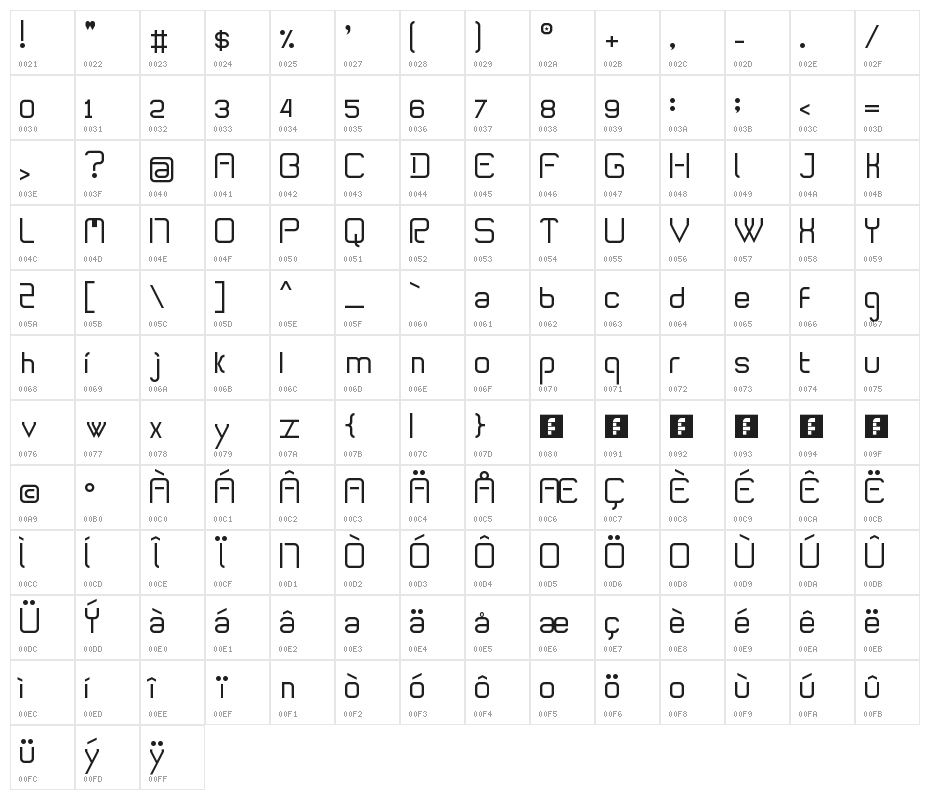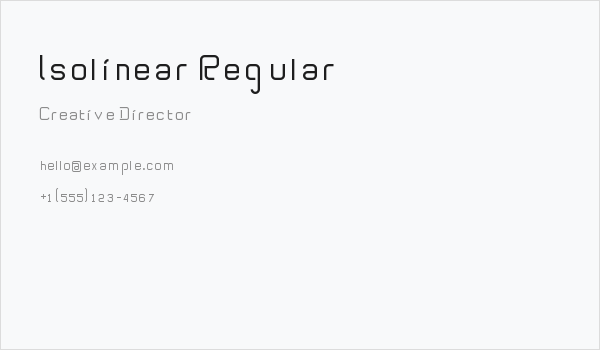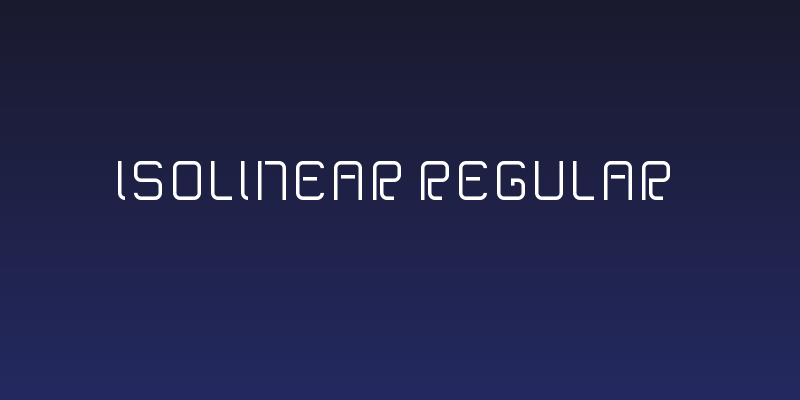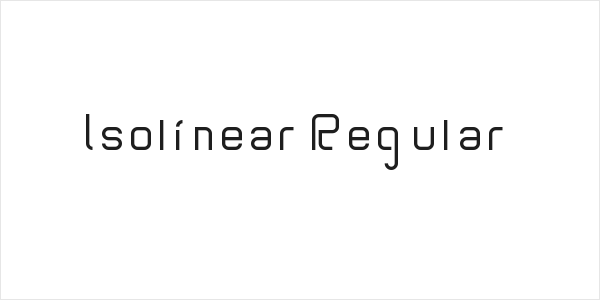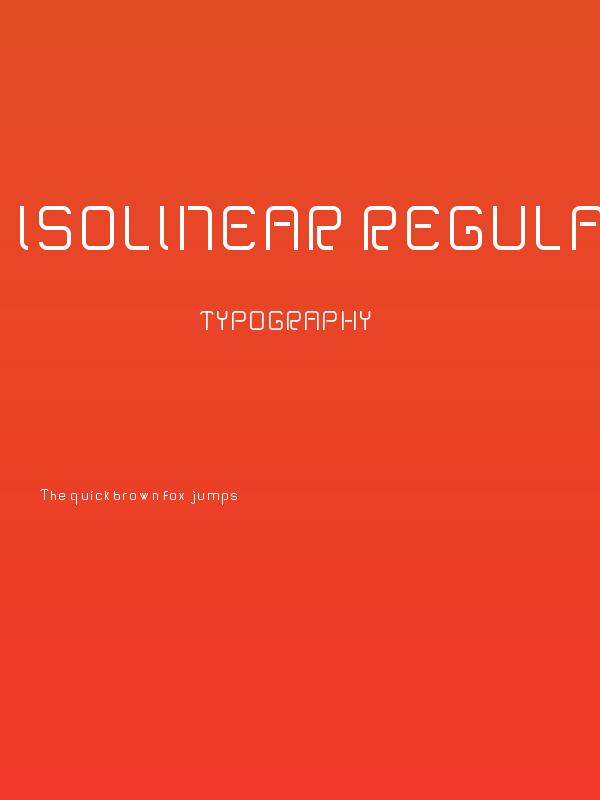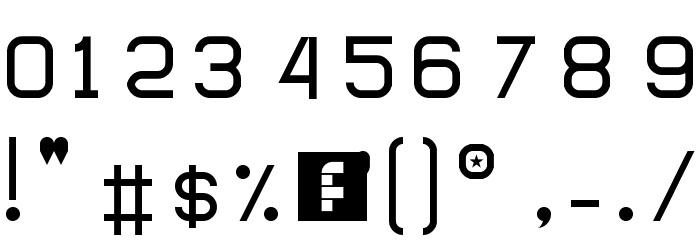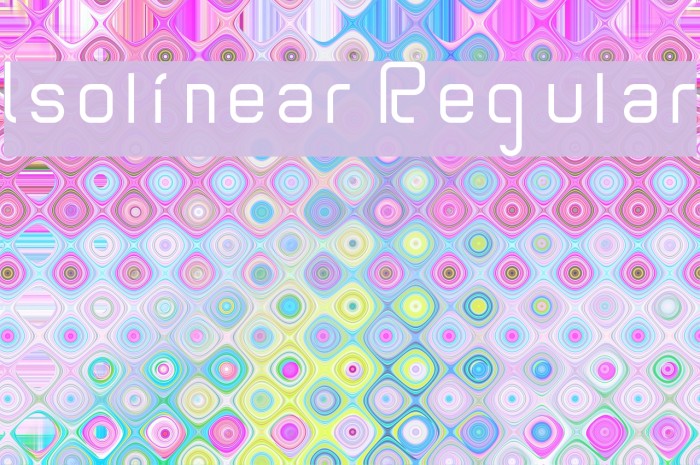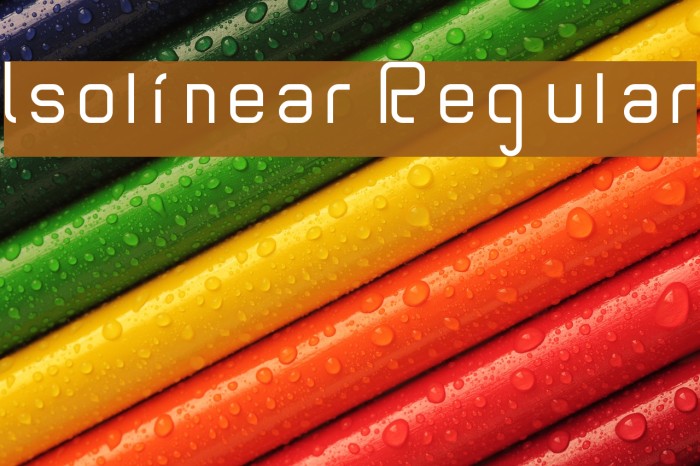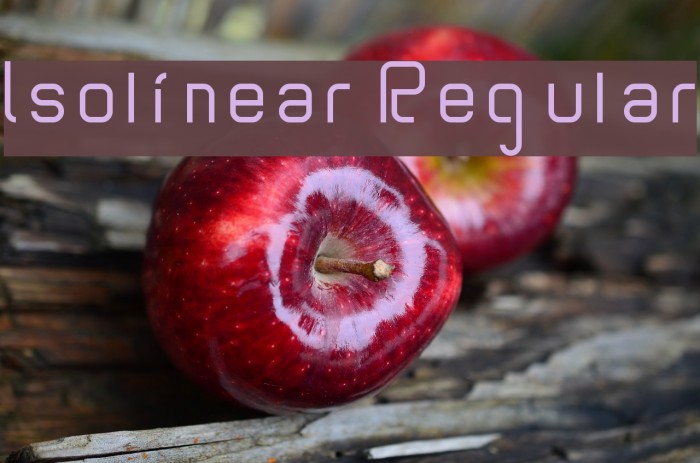
Isolinear Regular Font
Isolinear Regular Description
This font features a futuristic and geometric design, characterized by its clean lines and rounded corners. The uppercase and lowercase letters maintain a consistent height, creating a uniform appearance. The numerals are distinct and easily readable, complementing the overall modern aesthetic. Special characters are designed with the same attention to detail, ensuring they blend seamlessly with the alphabetic characters. The font's structure is minimalistic yet sophisticated, making it suitable for a variety of digital and print applications.
| Proposed Projects | Ideal for tech branding, digital interfaces, modern posters, and sci-fi themed designs. |